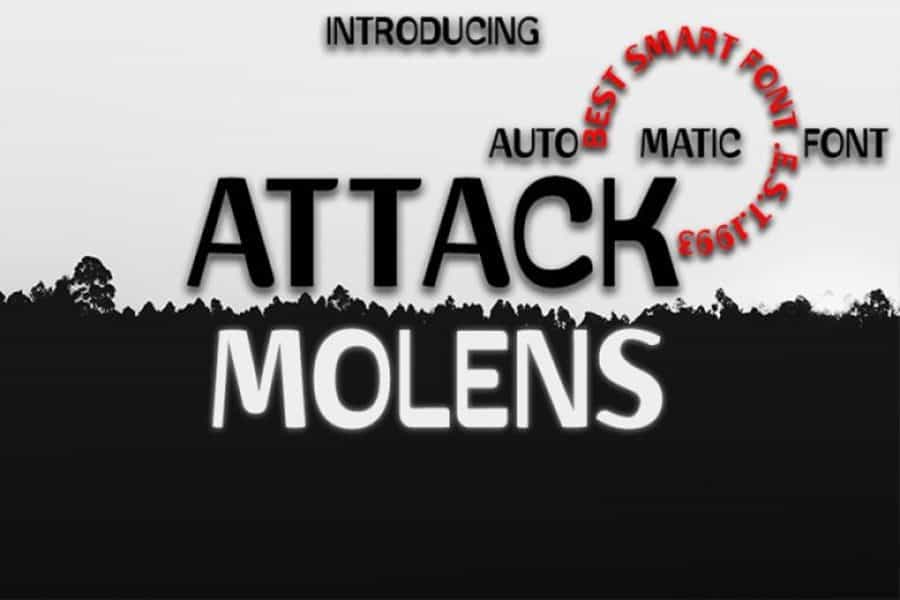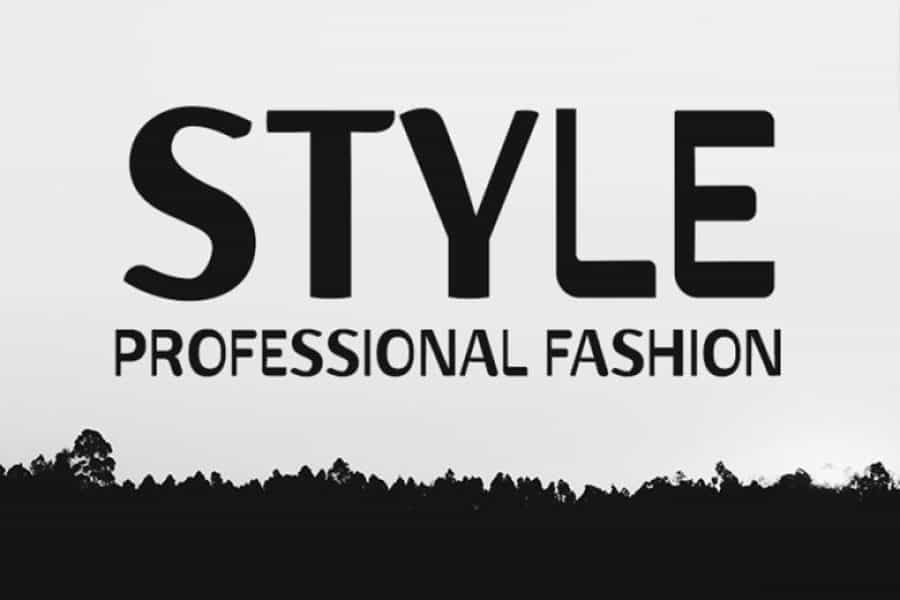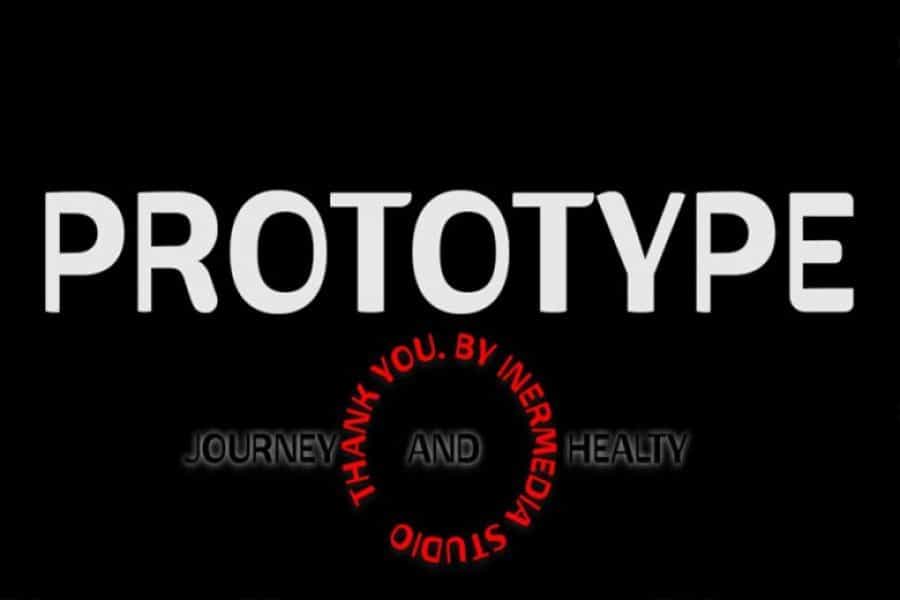
Attack Molens Sans Serif Font is an elegant way to embody fun, wit, and authenticity in your writing or design projects. With its charming sans serif font design, Attack Molens will help transform any idea into something completely original and captivating.